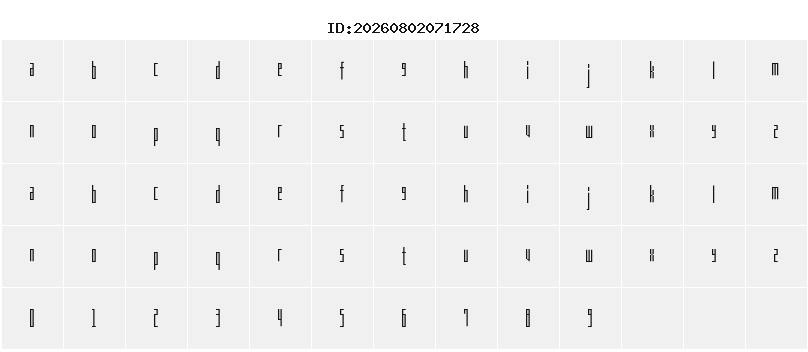
• Font Name: MEN'S COSME
MEN'S COSME.ttf is a modern, elegant sans-serif font designed for ultimate readability and visual harmony. Perfect for branding, headlines, web design, and print materials.